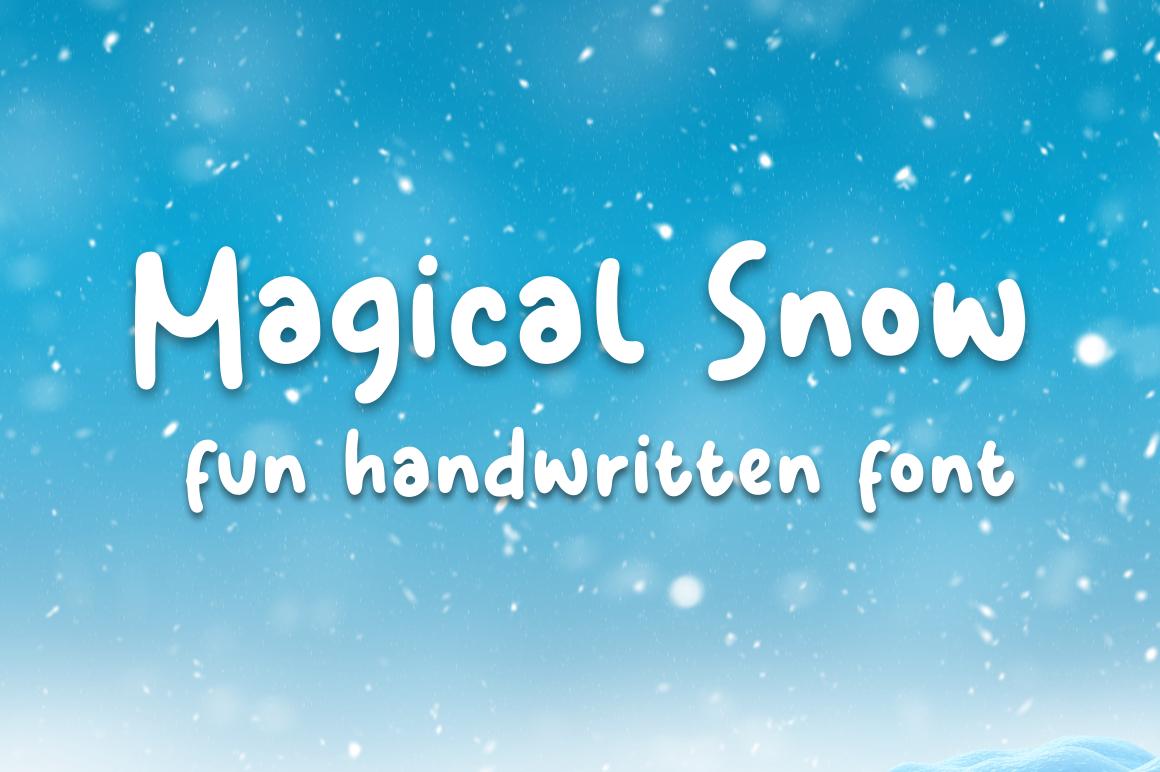
Magical Snow Font Description
Create gorgeous and timeless designs with Magical Snow, an interesting and unique display font.
Fall in love with its incredibly stylish look and use it for logos, quotes, invitations, business cards, power point presentations, and more!